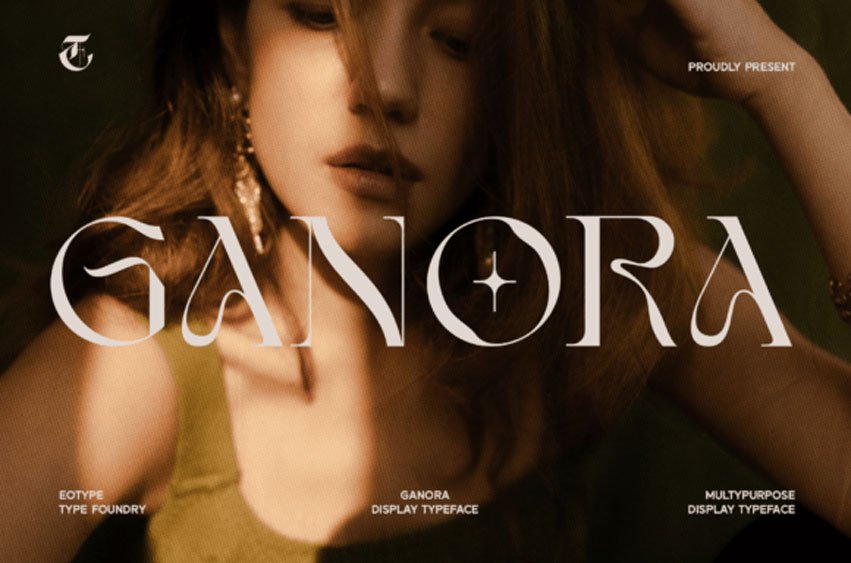
Ganora Font is a semi-serif display font. This font has a beautiful and aesthetic look. Ganora has classic serif legibility as well as beautiful modern curves.